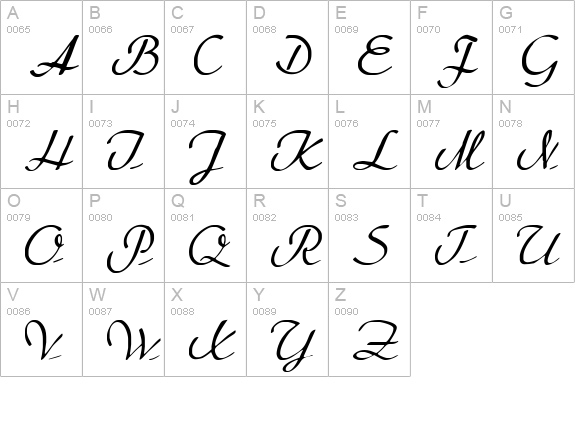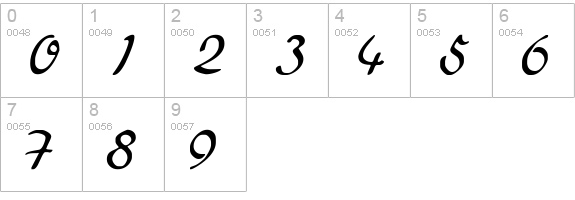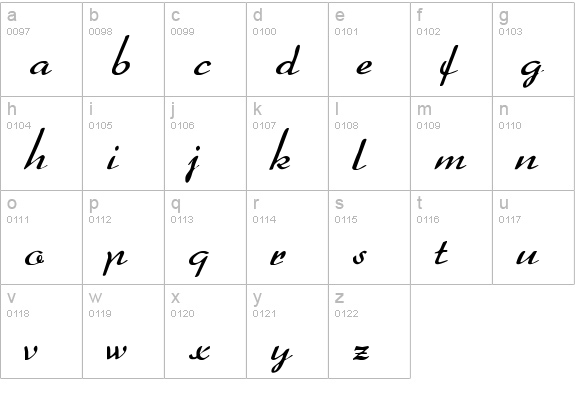
Heather Regular is the standard, neutral variant in the Heather typeface family \xE2\x80\x94 well suited to general body text, paragraphs, and standard typographic work.